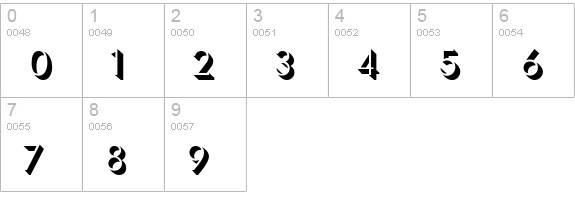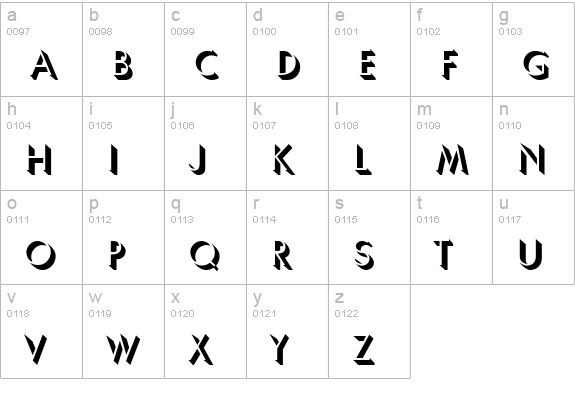
Umber Normal is the standard, neutral variant in the Umber typeface family \xE2\x80\x94 well suited to general body text, paragraphs, and standard typographic work.
Umber Normal is a stunning font that effortlessly combines modern aesthetics with timeless elegance. Its sleek and streamlined letterforms make it perfect for both professional and creative projects. With its clean lines and balanced proportions, Umber Normal exudes a sense of sophistication and class. This versatile font is suitable for a wide range of applications, from logo designs and branding materials to printed publications and web content. Its legibility and readability ensure that your message will be conveyed with clarity and style. What sets Umber Normal apart is that it is not just a beautiful font, but it is also freely available to download at FontsMarket.com. This means that you can enjoy the benefits of this exceptional font without any cost. Whether you're a professional designer or a hobbyist, Umber Normal provides you with the opportunity to enhance your projects with a high-quality font that adds a touch of elegance and professionalism. So, why wait? Download Umber Normal today from FontsMarket.com and elevate your designs to new heights. Enjoy the freedom and creativity that this font brings, and let your imagination run wild as you bring your vision to life.